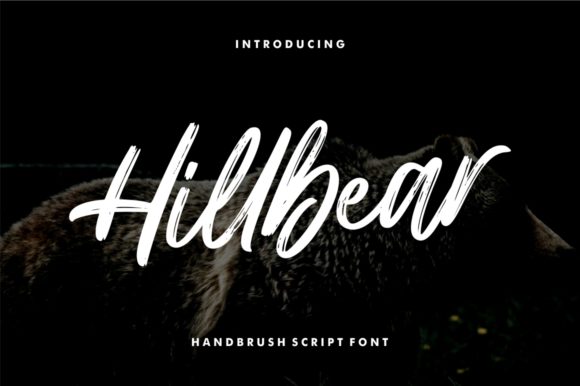
Introducing Hillbear Font, the exquisite and enchanting script font that will awaken the artist within you. Crafted by the renowned StringLabs, this font is an irresistible fusion of elegance and playfulness, a whimsical dance of pen strokes that will captivate your designs and leave an indelible mark on your audience.
Hillbear Font transcends the mundane, unlocking a realm of limitless possibilities. Its graceful curves and whimsical flourishes evoke a sense of wonder and delight, inviting you to create designs that are both visually stunning and emotionally resonant. Whether you're crafting invitations, branding materials, or simply unleashing your creativity, Hillbear Font will add a touch of magic to every project.
Step into a world of enchantment, where your words take flight with Hillbear Font. Its enchanting loops and delicate swashes will transport you to a realm of ethereal beauty, leaving your audience spellbound. This font is more than just a collection of letters; it's a gateway to a world of emotions, a brushstroke that paints a thousand stories.
With Hillbear Font, your designs will blossom into masterpieces, capturing hearts and igniting imaginations. Its versatility knows no bounds, adapting seamlessly to a myriad of projects, from personal notes to grand promotional campaigns. Each character dances across the page, carrying with it a wealth of emotions and memories, transforming your designs into timeless works of art.
Embrace the allure of Hillbear Font, and watch as your designs take on a life of their own. Let its enchanting embrace guide your creativity, as you weave words into a symphony of visual delight. Hillbear Font is not just a font; it's an invitation to create, to dream, and to leave a lasting legacy through the power of design. Join the legion of satisfied users who have unlocked the magic of Hillbear Font, and experience the joy of creating designs that are as unique and captivating as you are.